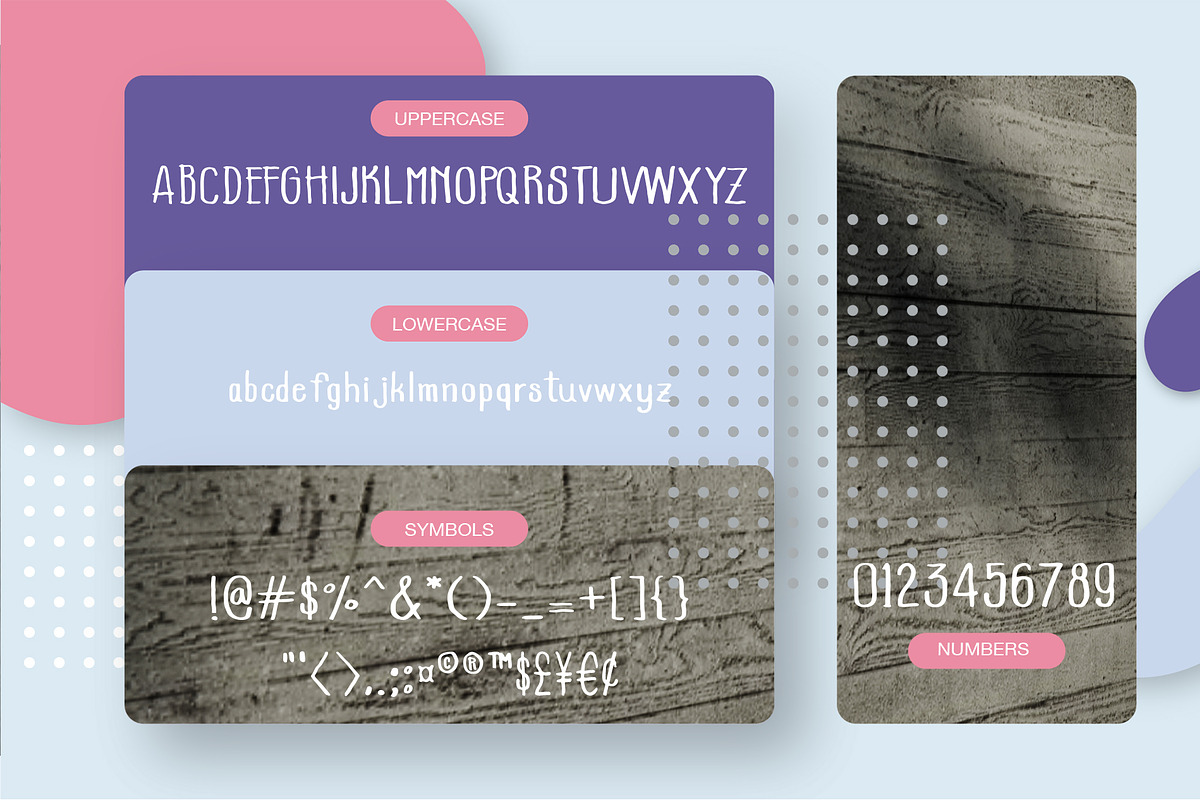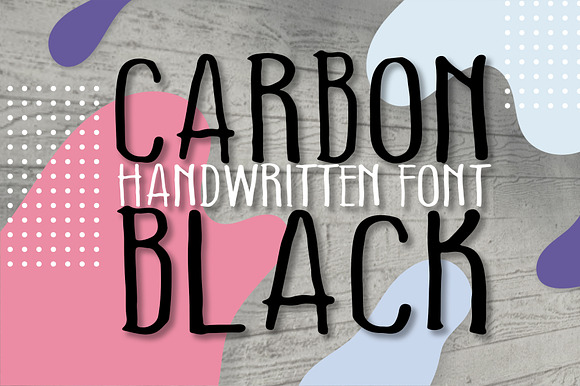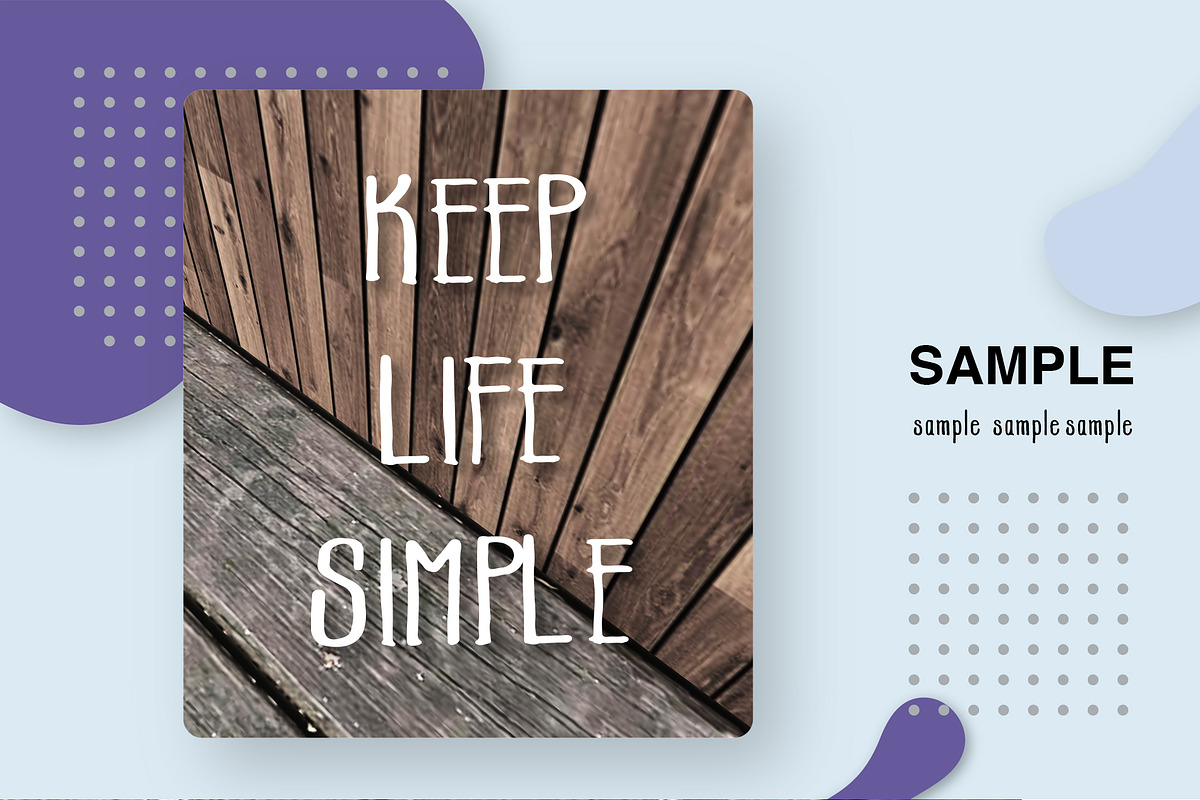
Carbon Black font
Carbon Black font is a simple style font With line thickness But not as smooth as a handwritten font style
Why Carbon Black font is worth a look
Carbon Black font by skyclick fits naturally into Branding, posters, packaging, typography.